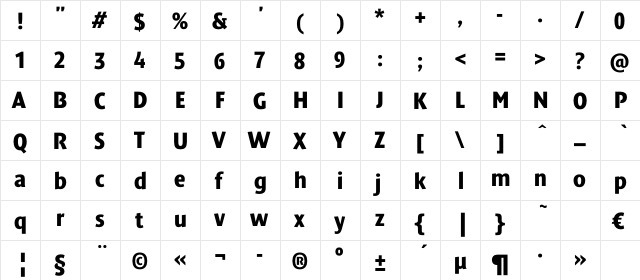
DendaNewBlackCondC Regular
Design Context for DendaNewBlackCondC Typeface
DendaNewBlackCondC is a composed and adaptable typeface that performs quietly and consistently across a wide range of design contexts. The condensed width makes it efficient for tight spaces without sacrificing legibility.